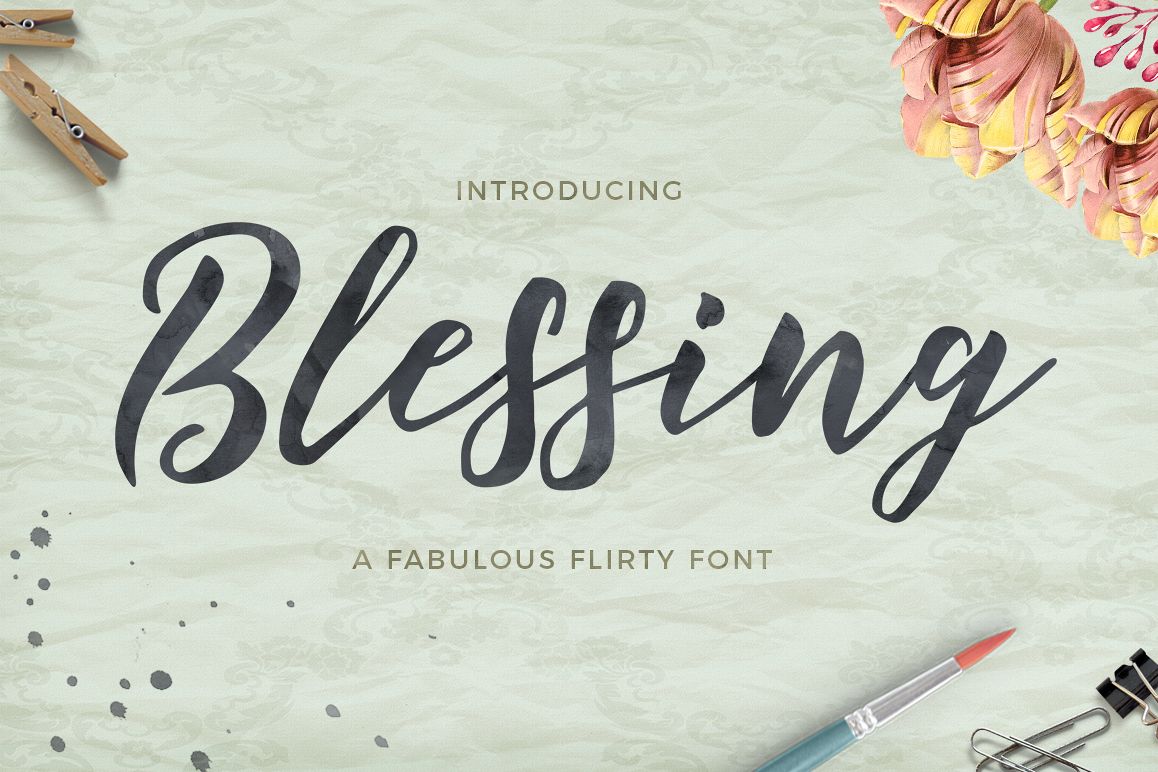
Blessing Script
Blessing Script modern font, organic, dynamic and energetic sytle.Can used for various purposes. such as the title, signature, logo, correspondence, wedding invitations, letterhead, signage, labels, newsletters, posters, badges, etc.